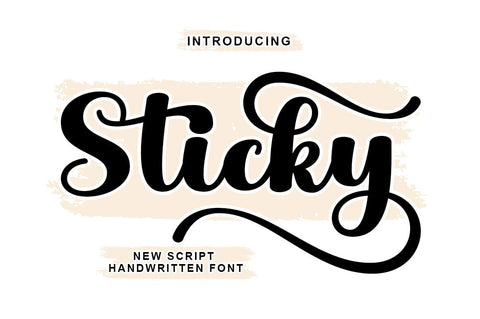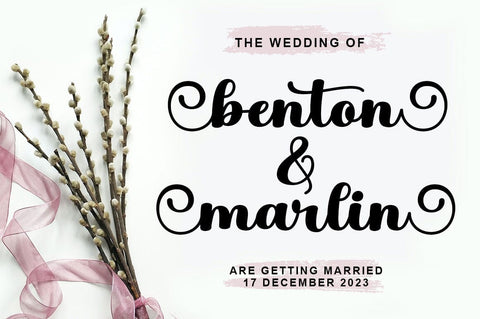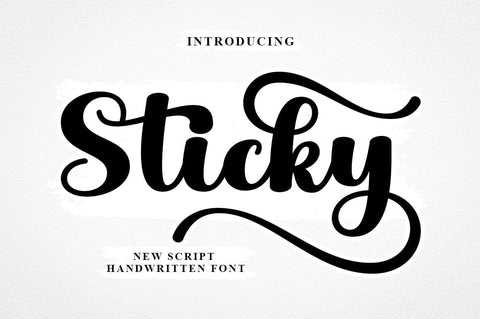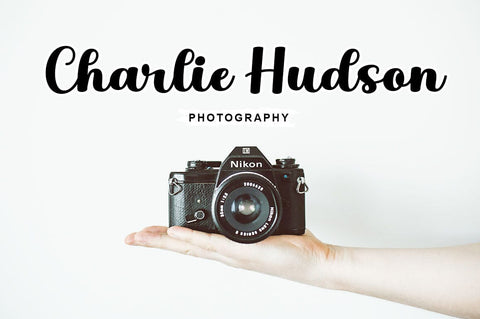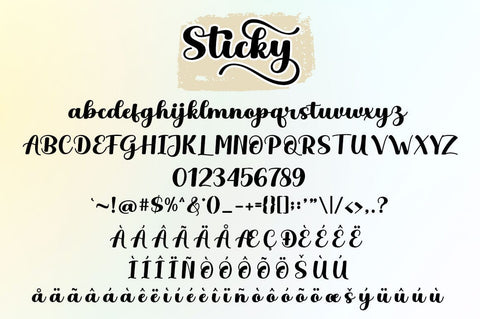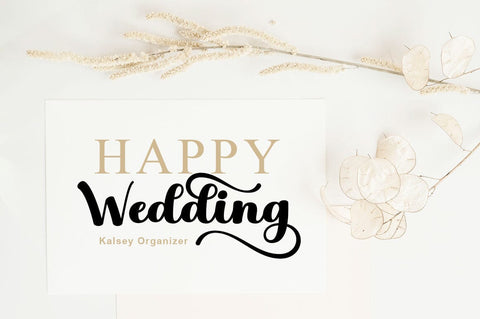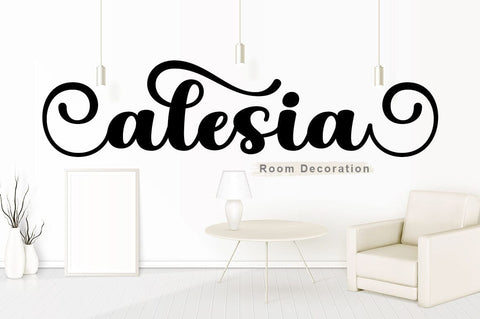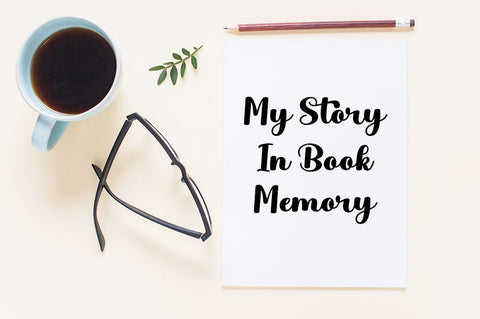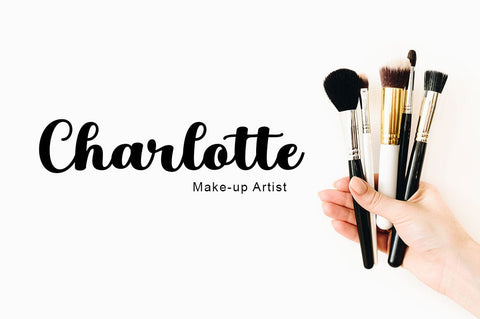
Sticky Script
Introducing Sticky Script, fresh and modern style calligraphy script new. typeface attractive interesting and so beautiful!
Sticky also has some extra glyphs that will create the character of the more interesting font, and the font is also suitable for making logos, invitations, greeting cards, quotes, posters and others.